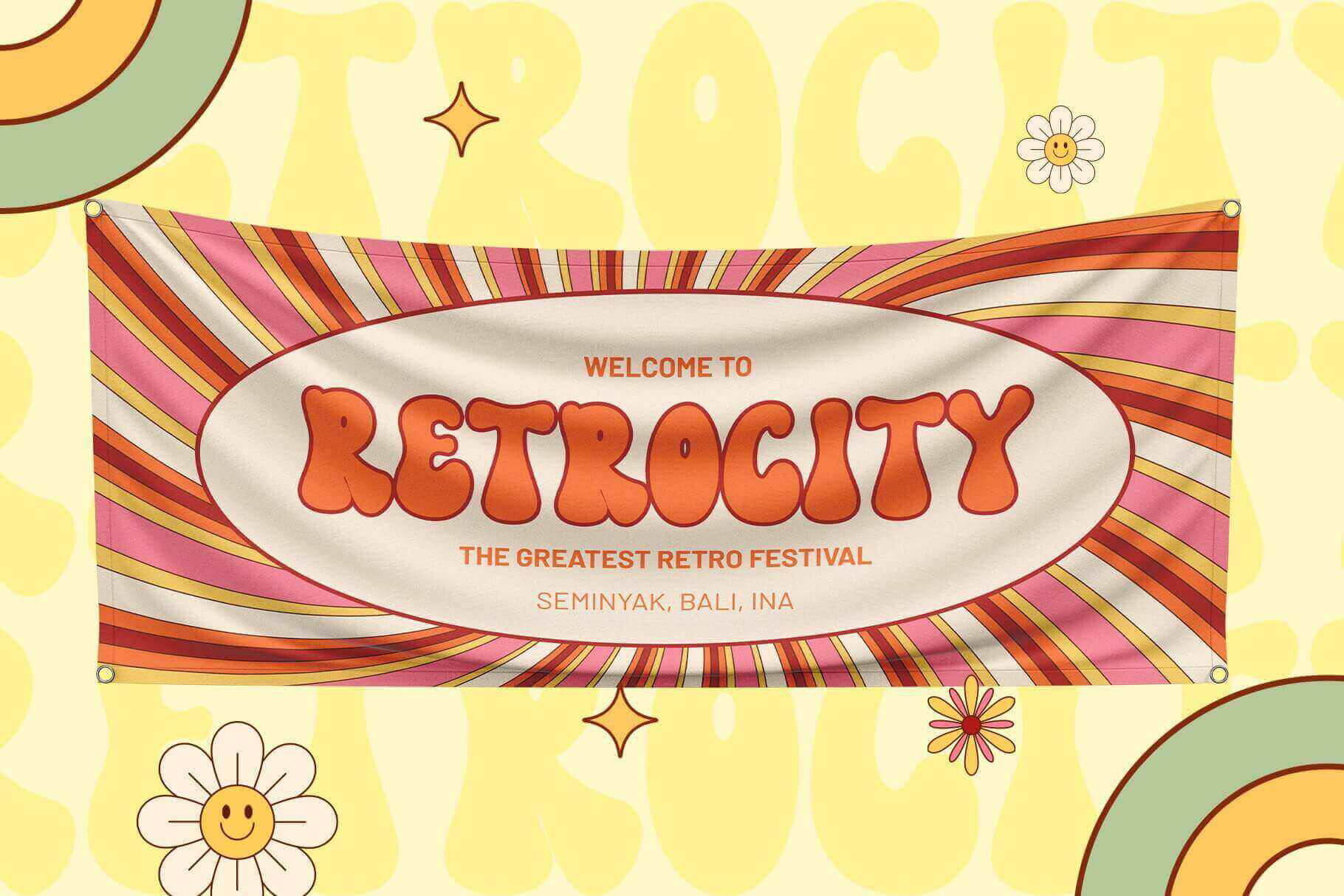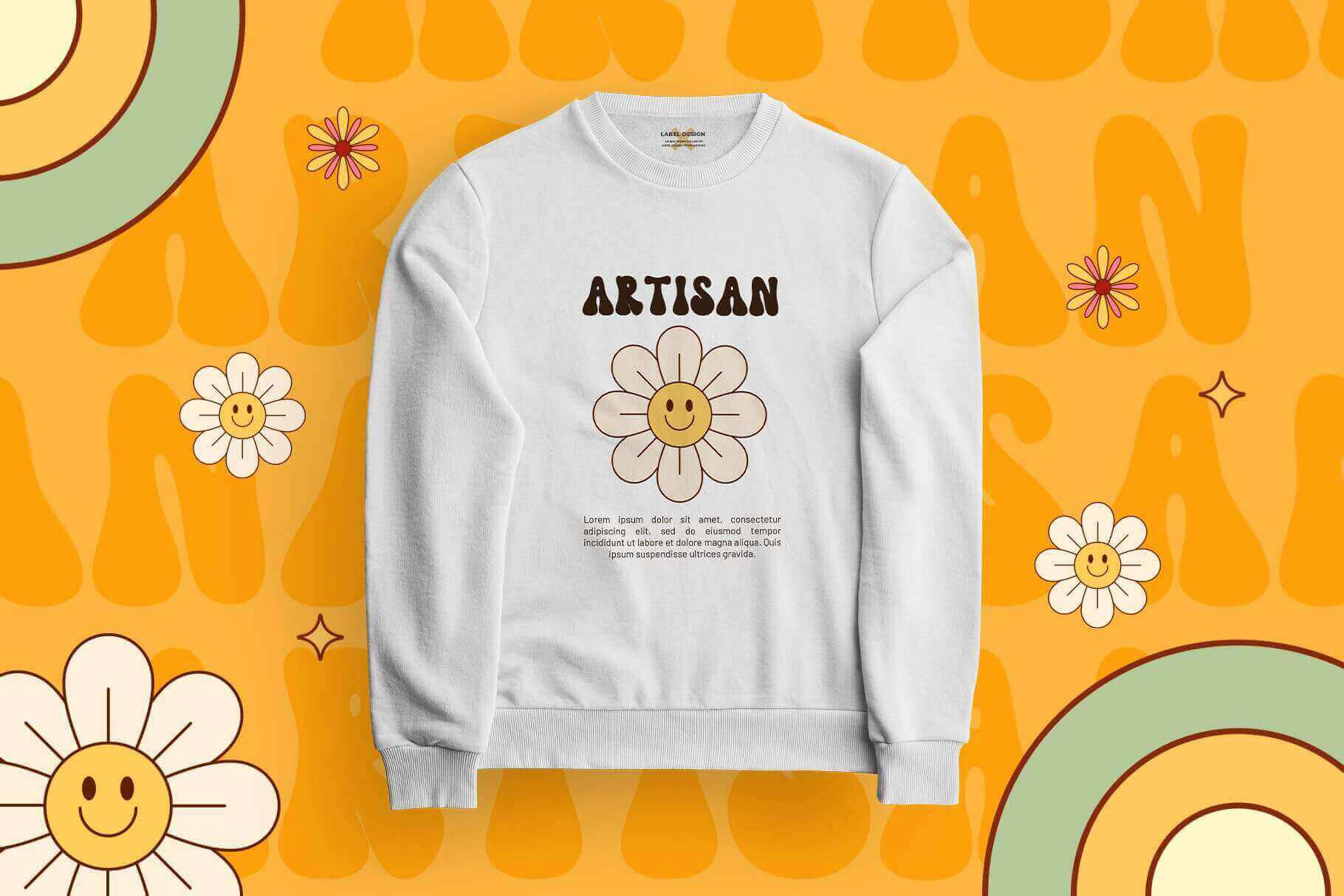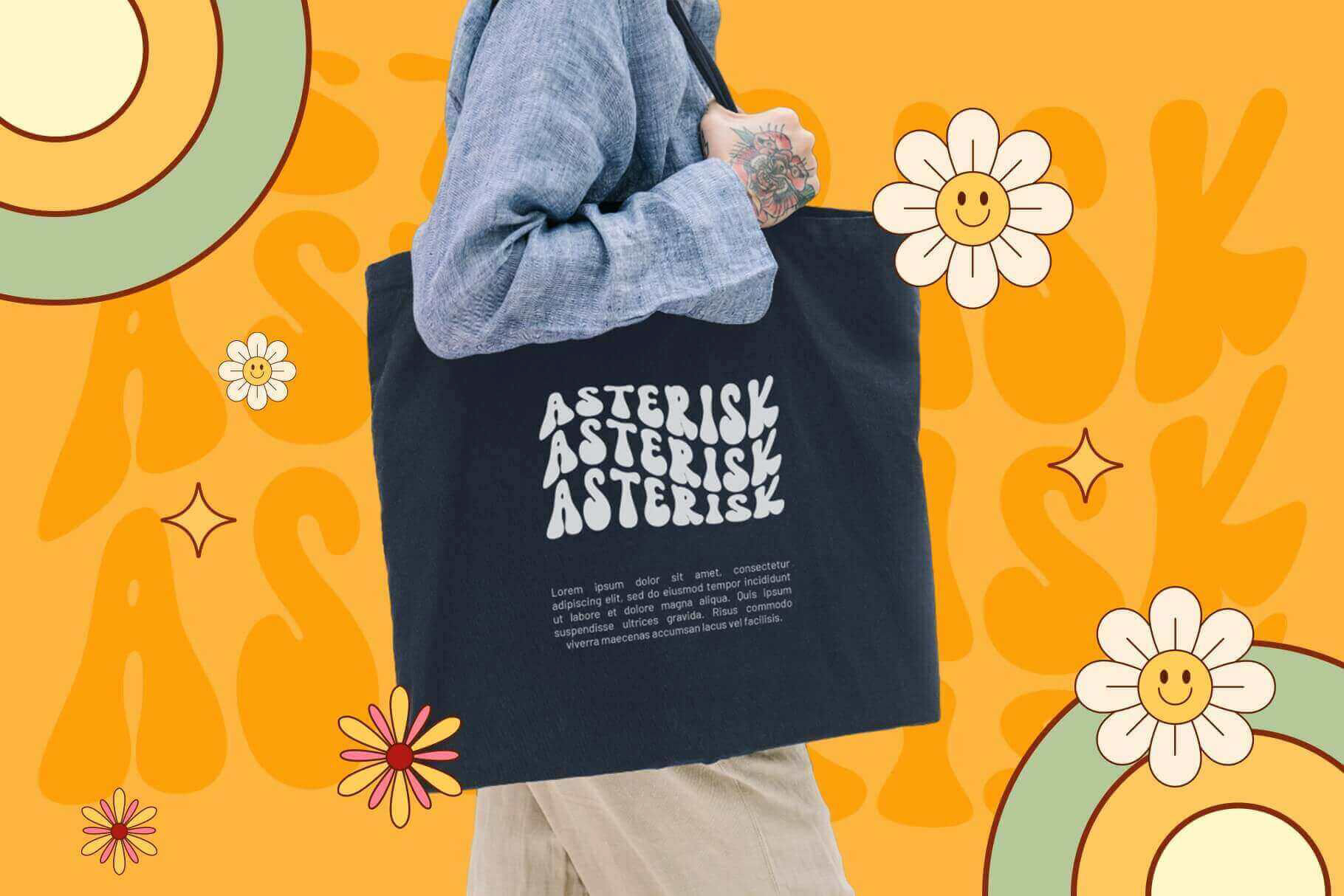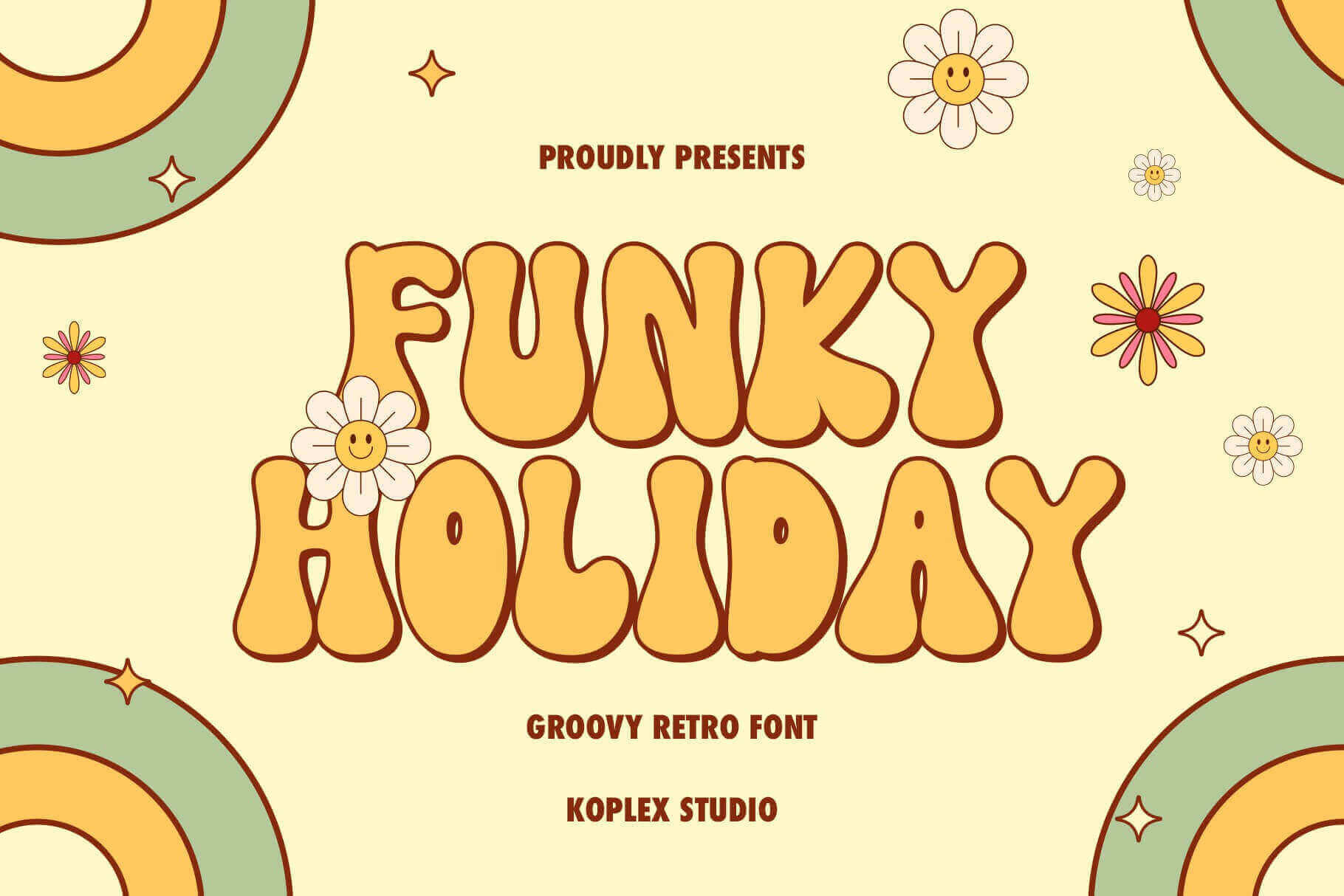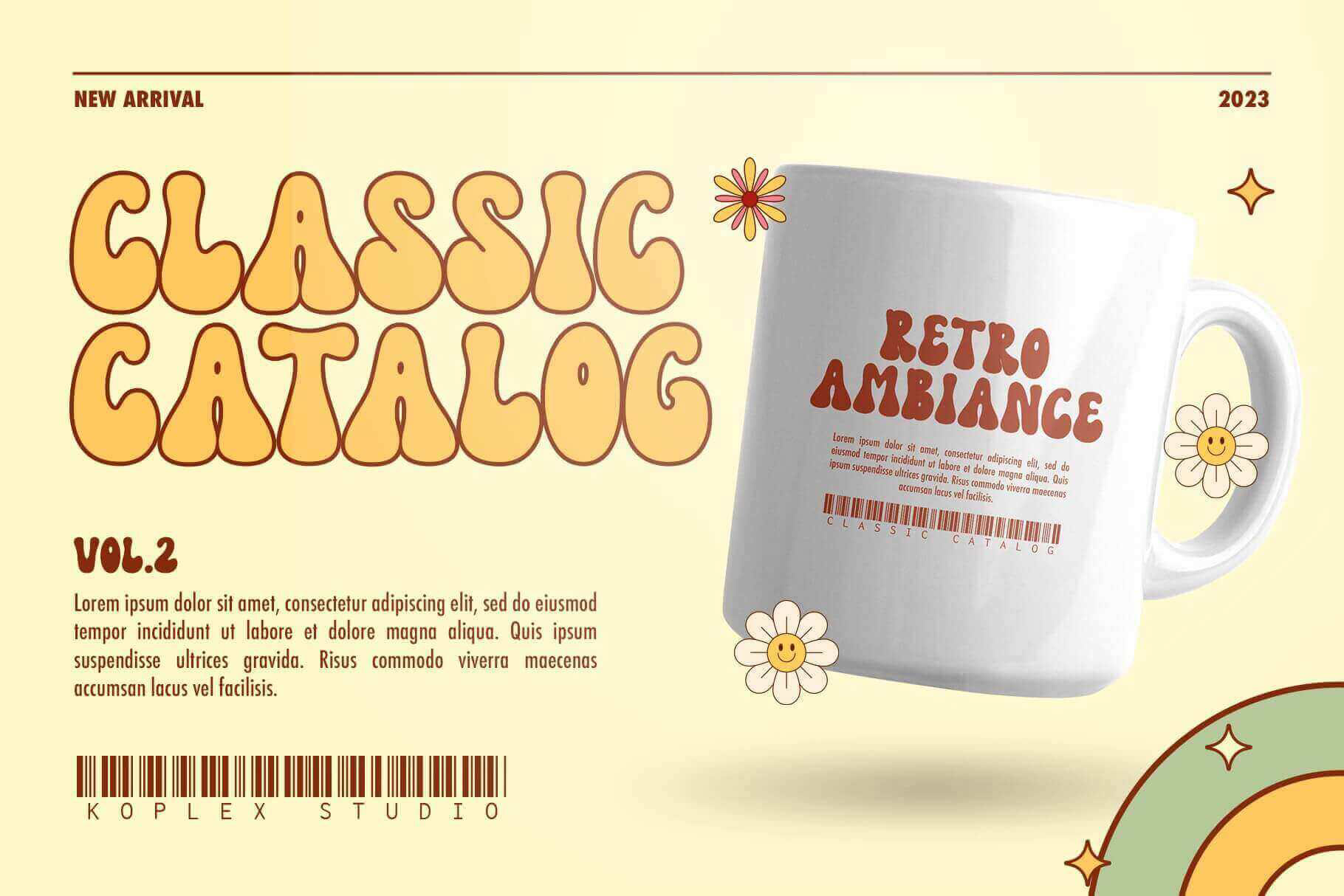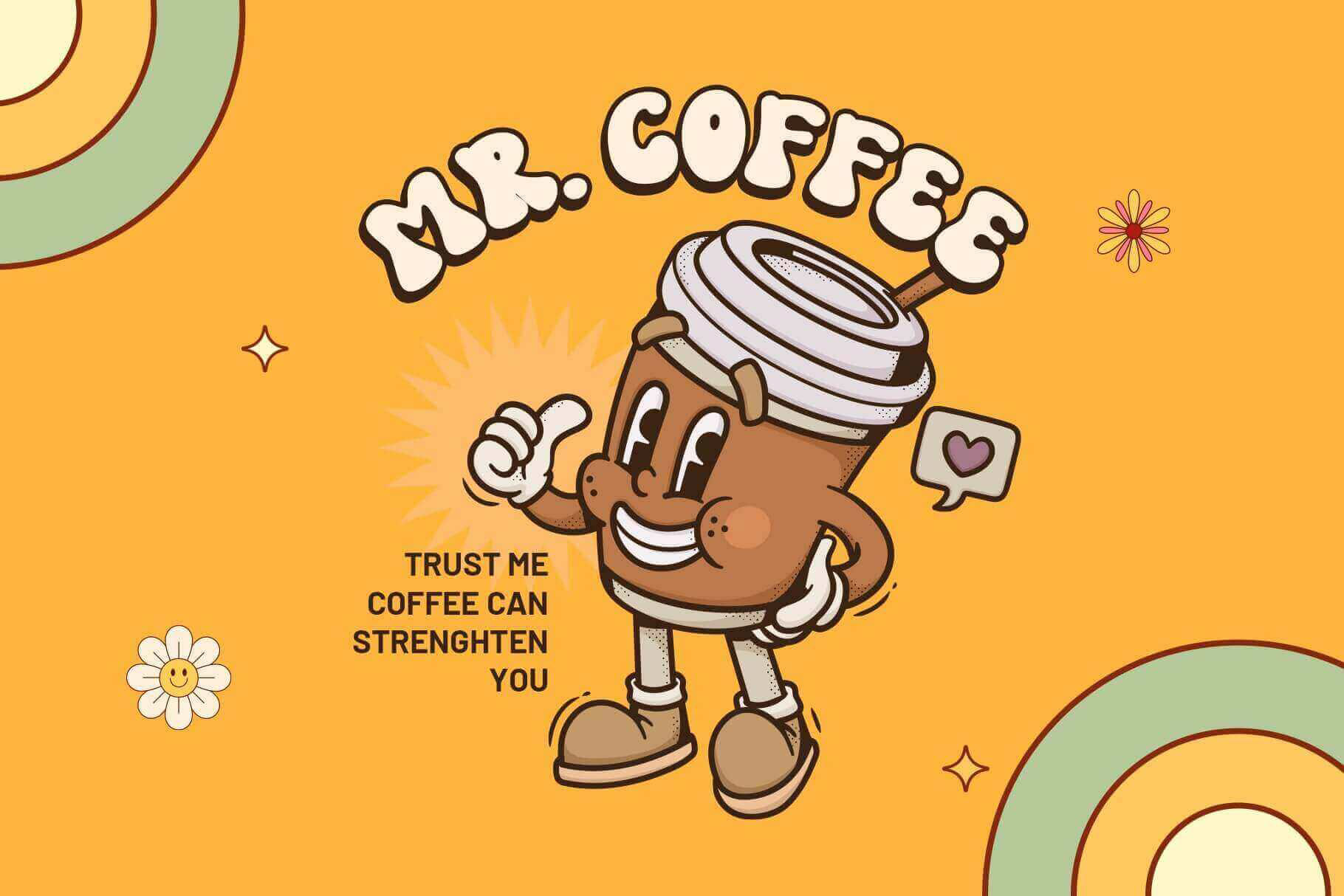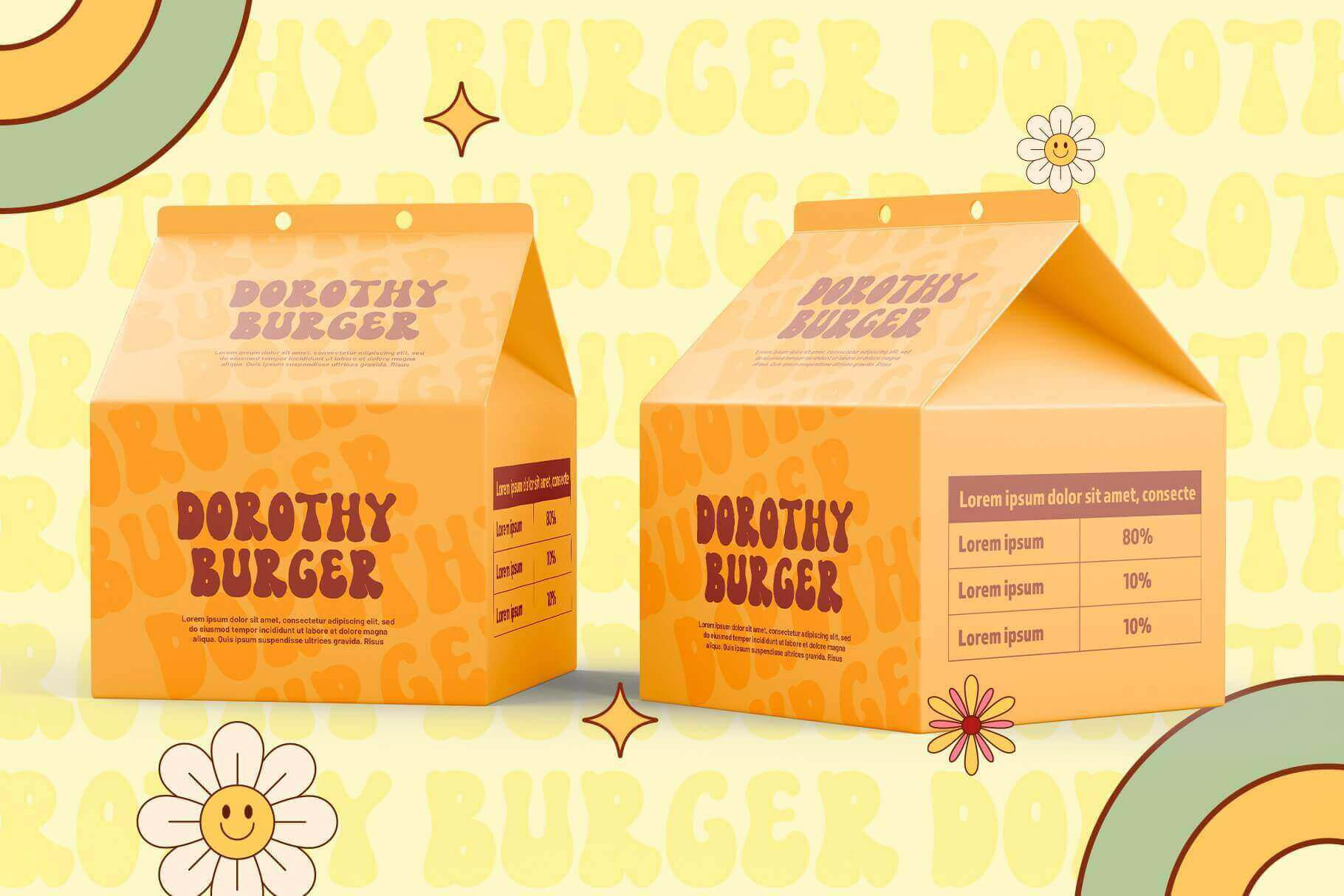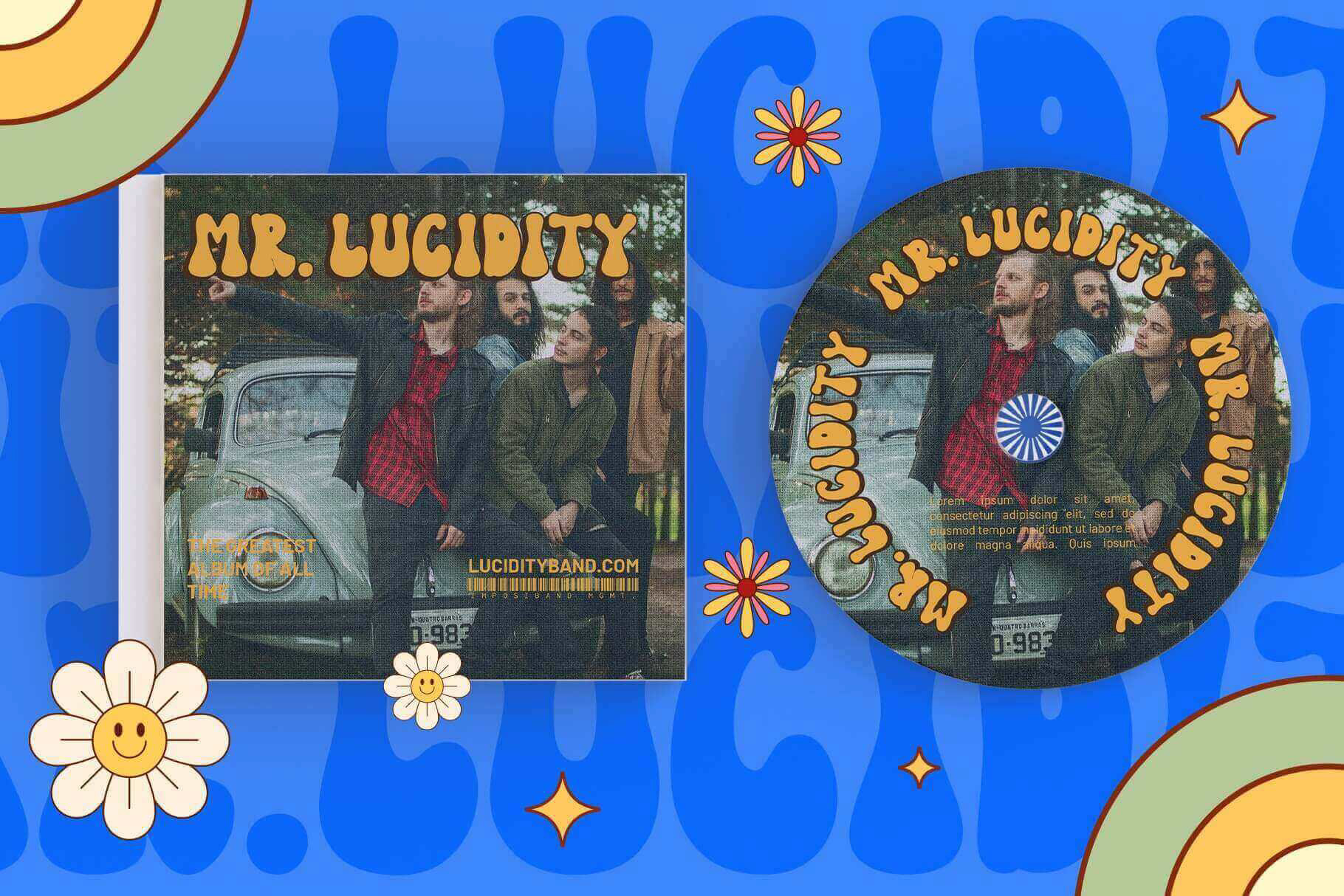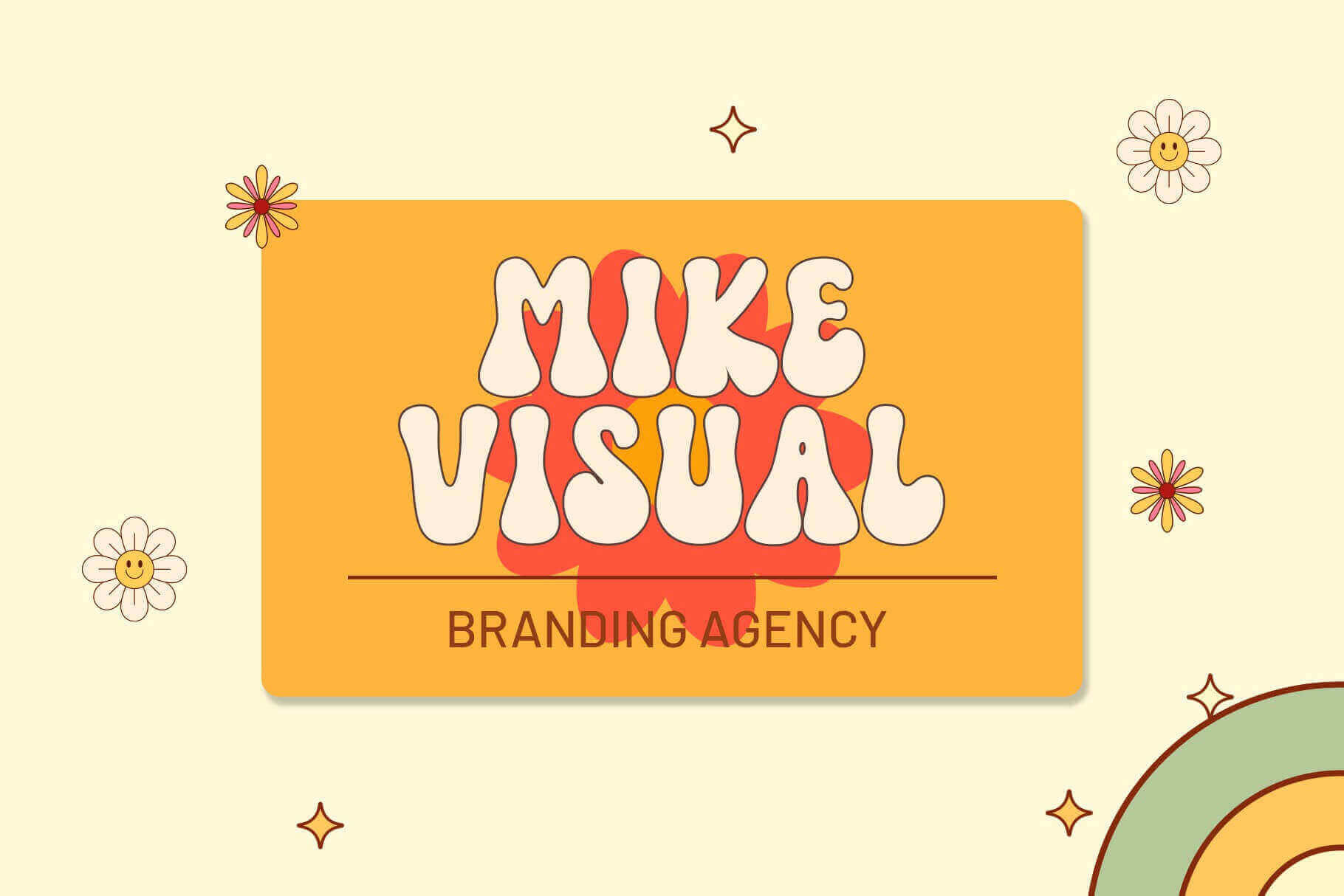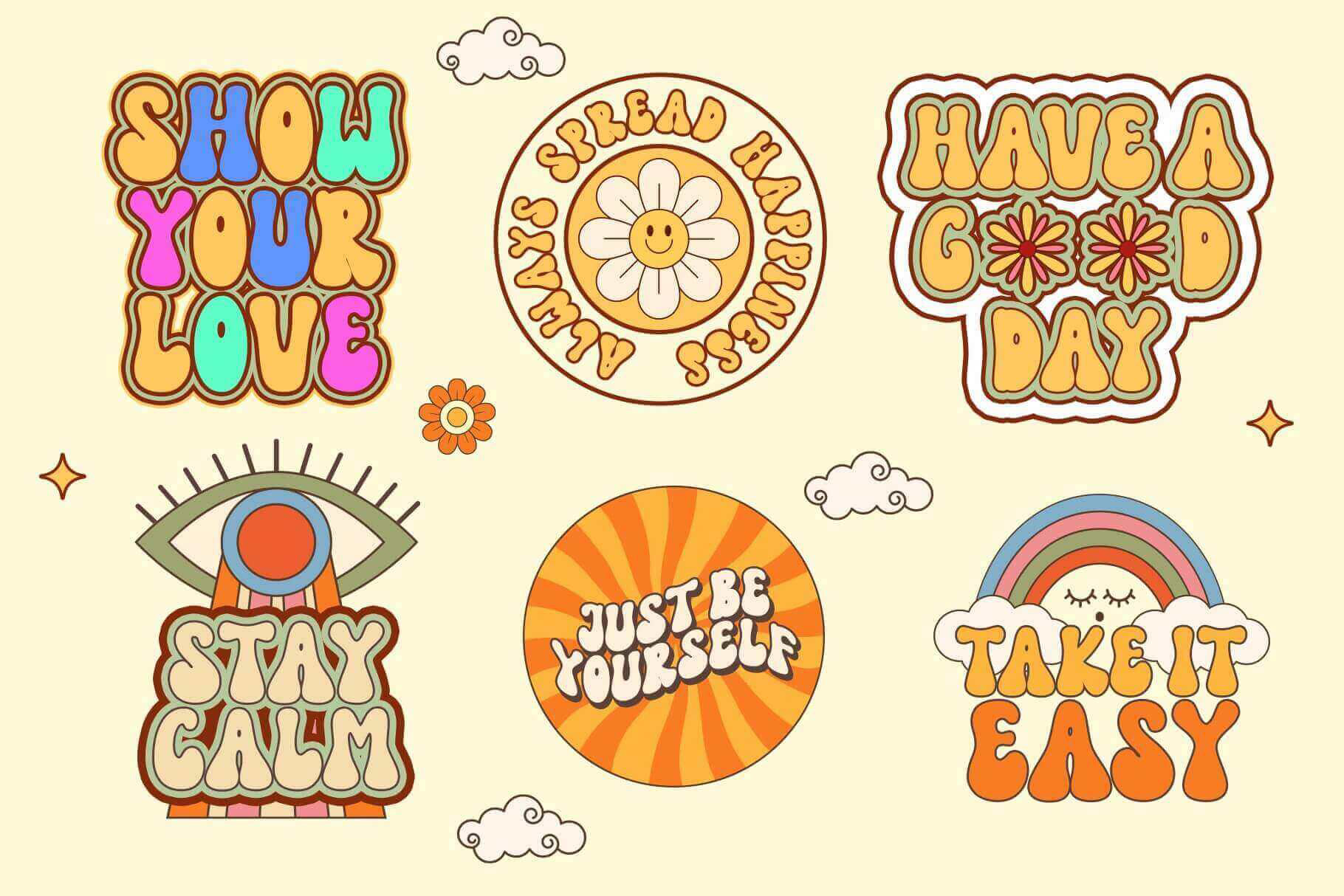
Funky Holiday – Groovy Retro Font
Funky Holiday – Groovy Font and Retro font is perfect for creating striking product packaging, T-shirt designs, headlines, posters, album covers, and any other design that aims to capture the spirit of the groovy era. Let your creativity run wild and infuse your projects with a touch of retro coolness using this fun and energetic font. this font has the potential to bring each of your creative ideas to the highest level!